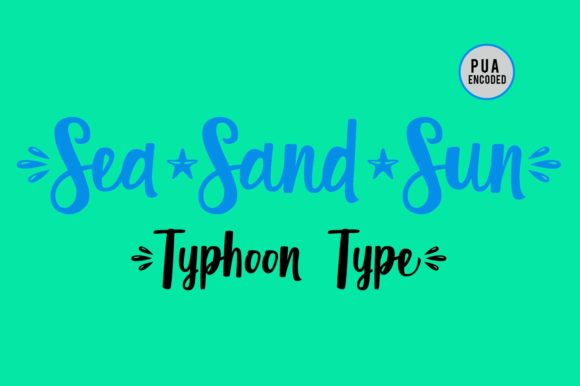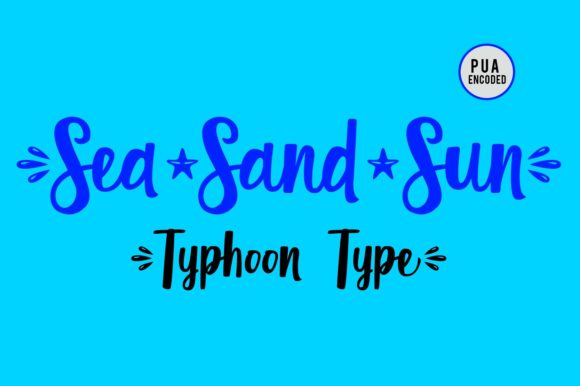
Introduction to Sea Sand Sun Font
Have you ever found yourself in the midst of a creative project, struggling to find the perfect font to capture the essence of your design? The search can be overwhelming, with countless options available online. But what if I told you there’s a font that can add a touch of luxury and whimsy to your work?
Enter the enchanting Sea Sand Sun Font, a sweet and flowing script font that’s perfect for designers looking to elevate their projects. With its delicate characters and elegant design, this font is sure to make a statement. Whether you’re working on a free download or a high-quality design resource, the Sea Sand Sun Font is a valuable addition to any designer’s toolkit.
One of the standout features of this font is its versatility. Its transparent background makes it easy to layer and combine with other design elements, while its high-quality design ensures that it will look great on any background. So why settle for a generic font when you can add a little luxury to your design with the Sea Sand Sun Font?
Key Features of Sea Sand Sun Font
- Transparent background for seamless integration into any design
- Customizable and scalable for use in different sizes and resolutions (up to 1024 x 1024 px)
- Unique, hand-drawn style with a relaxed, beach-inspired feel
- Perfect for branding, logos, and other design elements requiring a touch of whimsy
- Includes a comprehensive set of characters and glyphs for effective communication
Honest Review: Sea Sand Sun Font
I recently stumbled upon the Sea Sand Sun Font, and I must say, it’s been a game-changer for my creative projects. The high quality of this font is undeniable, and it’s a great addition to any design resource collection.
Here are some things that work well with this font:
- ✨ The transparent background option is a great feature, allowing for seamless integration with any design.
- ✨ The font’s versatility makes it suitable for a wide range of creative projects, from logos to brochures.
- ⚠️ The font may not be suitable for projects requiring extreme boldness or intricacy, as it’s primarily designed for clean and minimalist designs.
Overall, I’m impressed with the Sea Sand Sun Font, and I would highly recommend it to designers looking for a high-quality, versatile font for their creative projects.
How to Use Sea Sand Sun Font
The Sea Sand Sun Font is a beautiful, high-quality design resource perfect for your creative project. With its transparent background, this font is ideal for adding a touch of elegance to your designs.
To get the most out of the Sea Sand Sun Font, use it in designs that require a natural, beachy feel. Common use cases include:
Wedding invitations, beach-themed party decorations, and outdoor event materials.
Also, consider using the font in combination with other design elements, such as images of seashells or driftwood, to create a cohesive look.